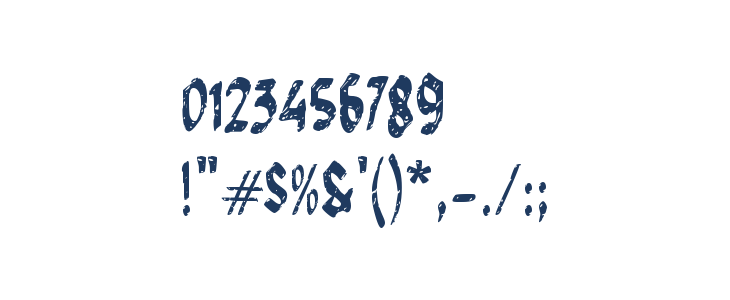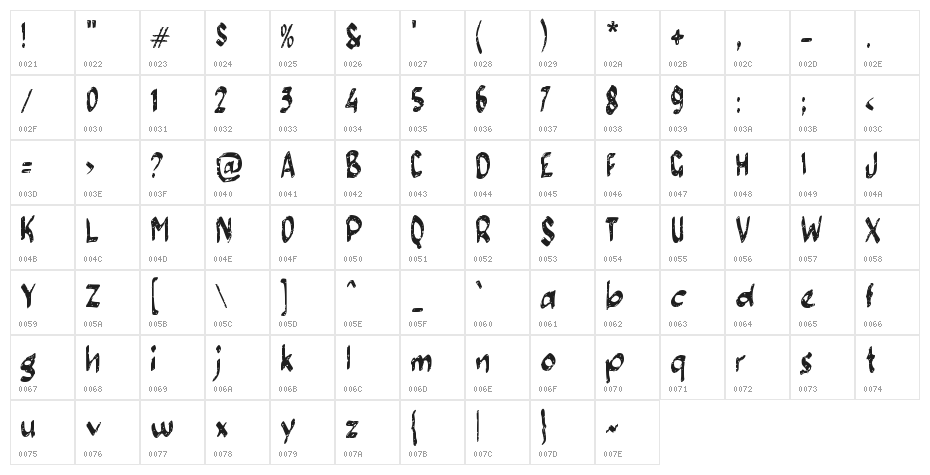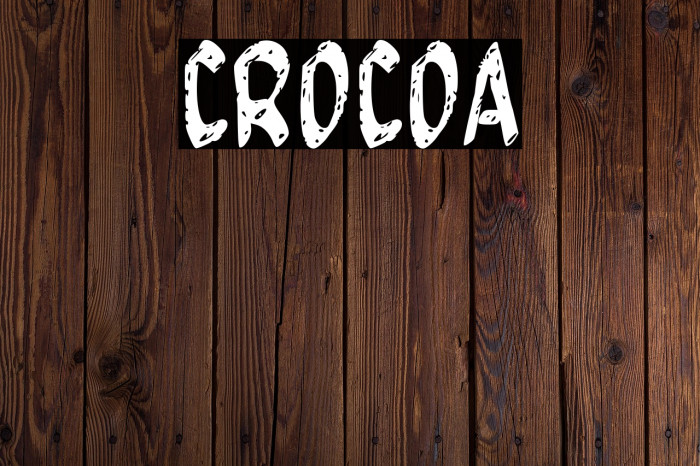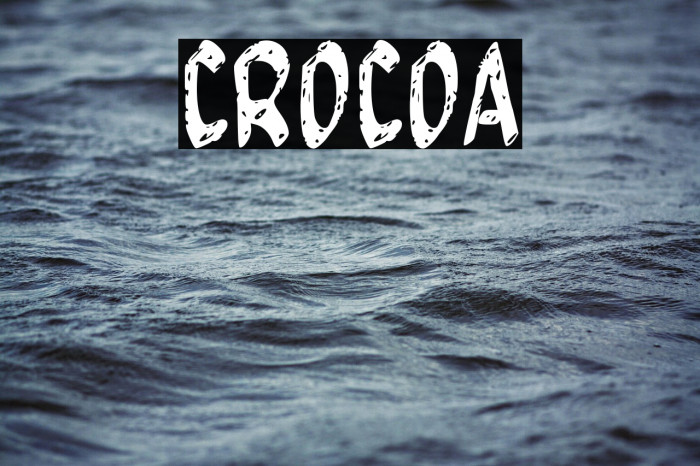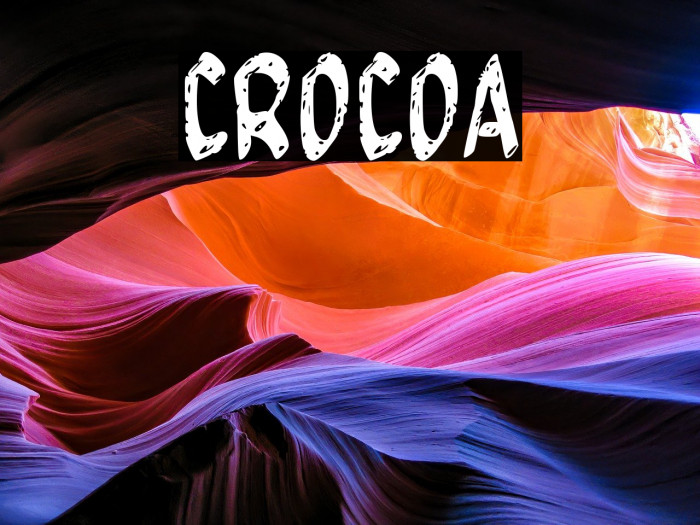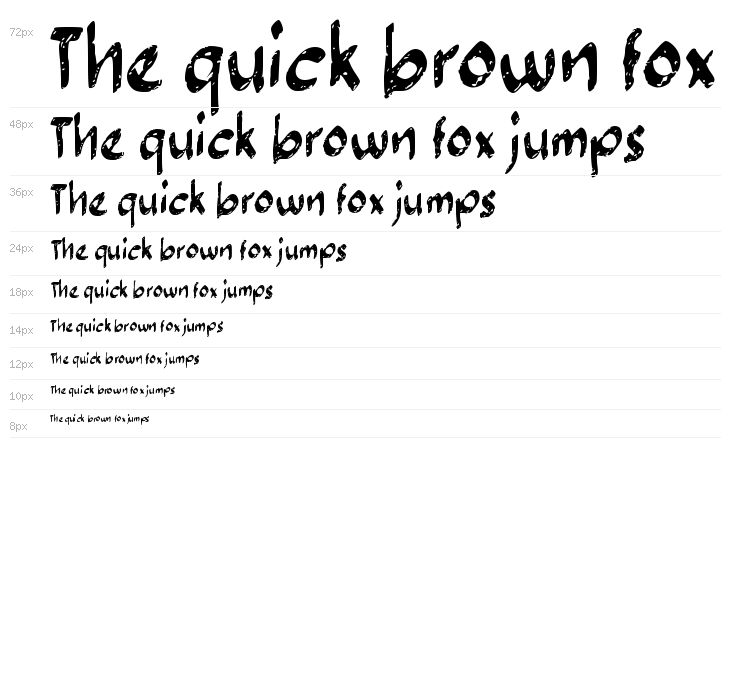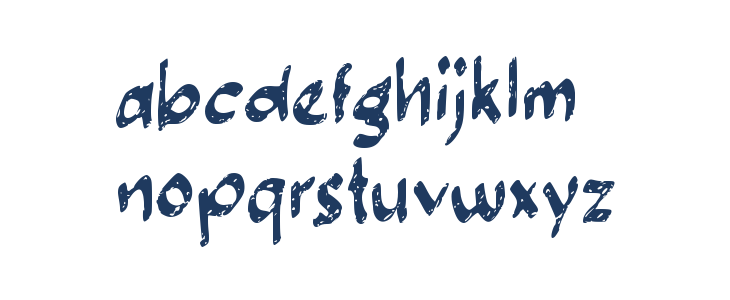
CROCOA Font
CROCOA Description
This font features a bold, hand-drawn style with a playful and slightly chaotic appearance. The characters are irregular and have a textured, distressed look, giving them a unique and artistic flair. The uppercase and lowercase letters maintain a consistent style, with rounded edges and varying stroke thicknesses that add to the font's dynamic nature. The numbers and special characters follow the same design principles, ensuring a cohesive look across all elements. This font is ideal for projects that require a creative and informal touch, such as posters, invitations, or branding for artistic ventures.
| Overall Style | Artistic, Playful |
| Proposed Projects | Perfect for creative projects like posters, invitations, and artistic branding. |